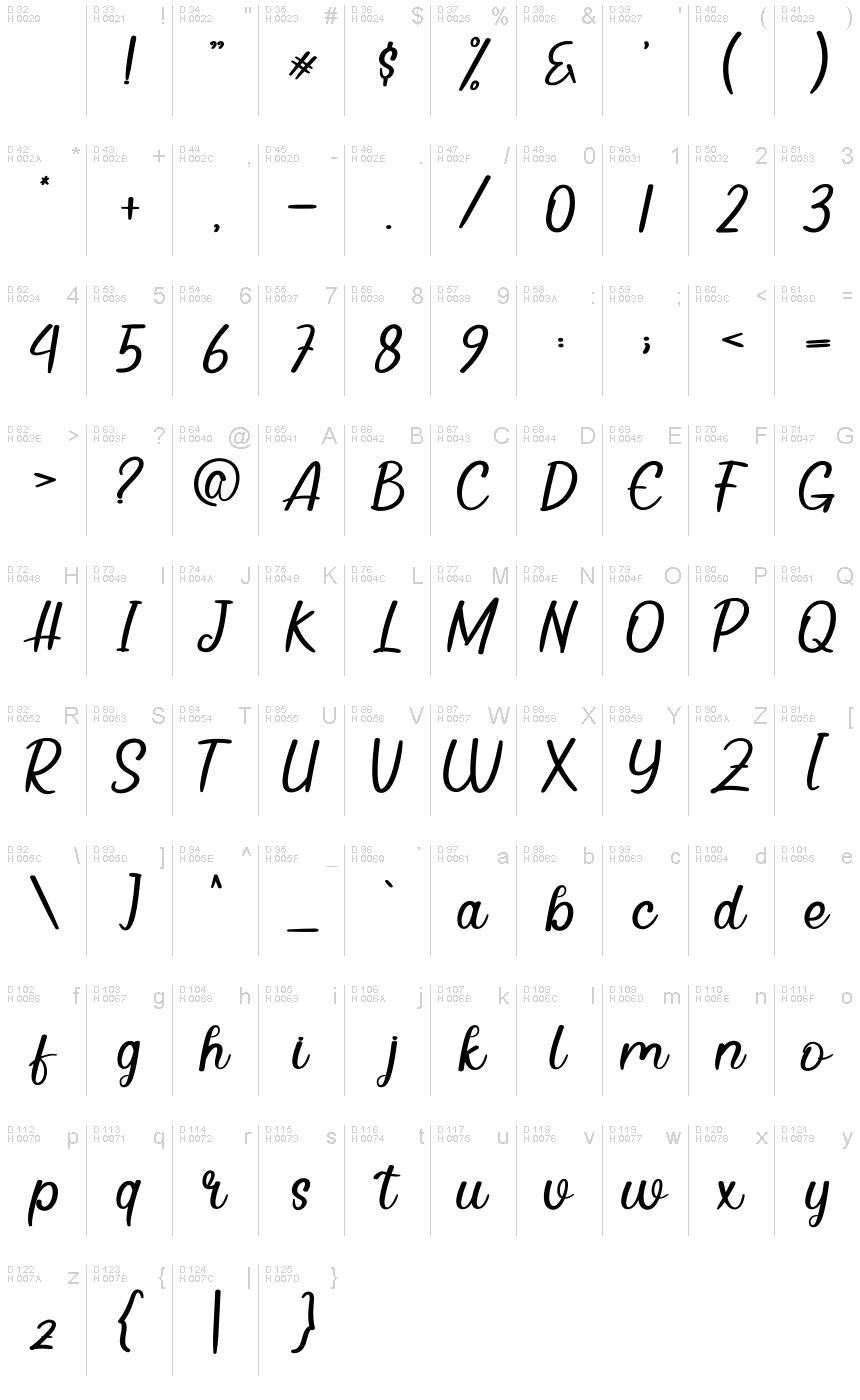
Montana
Montana is a handwritten font crafted with a personal touch by the talented Etik Fatimah. Its fluid and organic strokes convey warmth and authenticity, making it a delightful choice for designs that require a bespoke feel. The elegant curves and varying line weights of Montana echo the nuances of natural handwriting, infusing an inviting character into any project.
With its unique aesthetic, Montana holds immense potential for branding, wedding invitations, greeting cards, and more. Its style effortlessly straddles the line between casual charm and sophisticated flair, ensuring its adaptability across various creative endeavors. Whether you're looking to add a human touch to digital communications or aiming for standout packaging design, Montana offers versatility while remaining distinctively stylish.